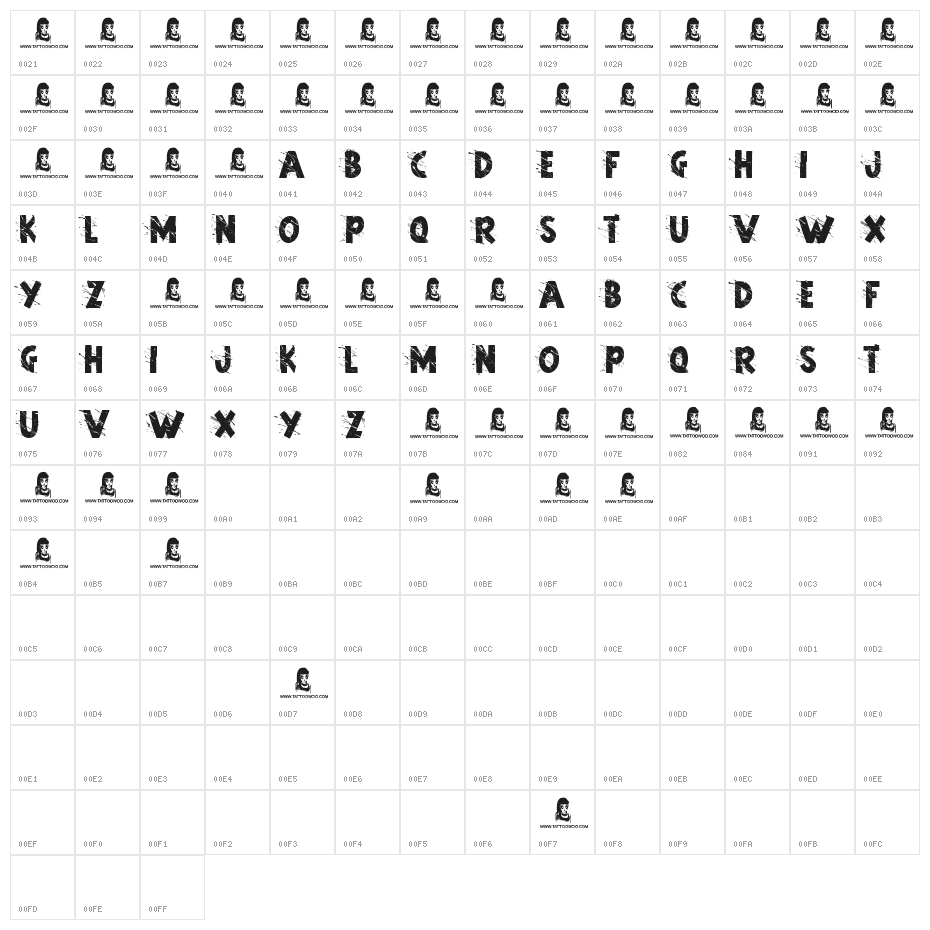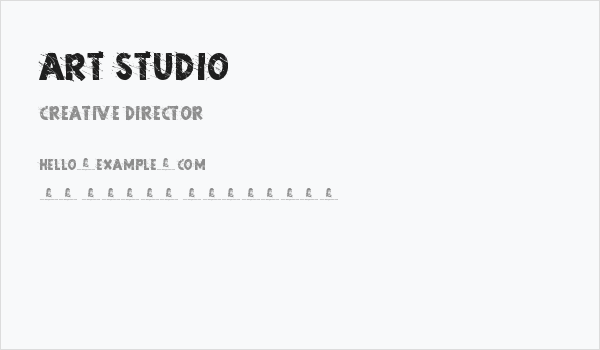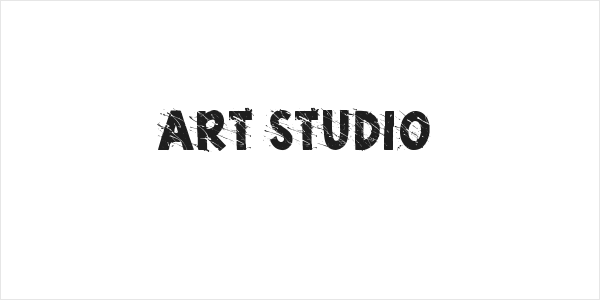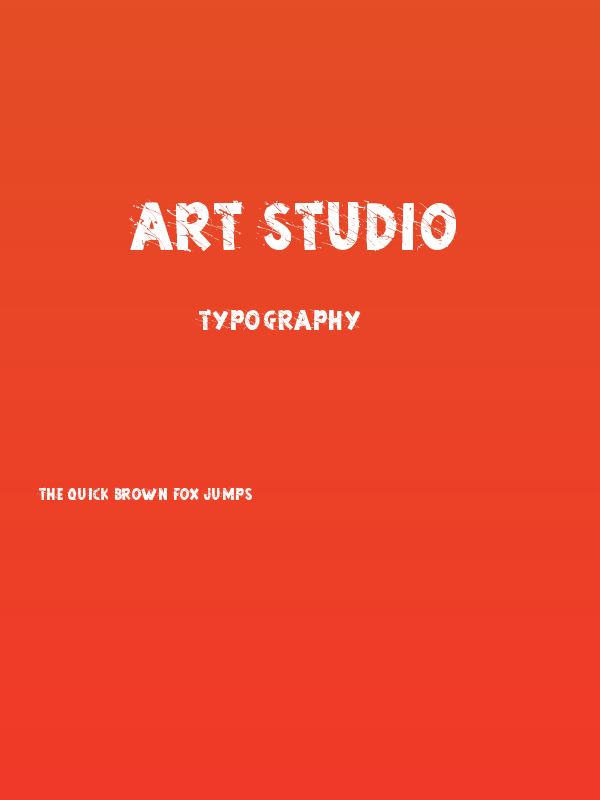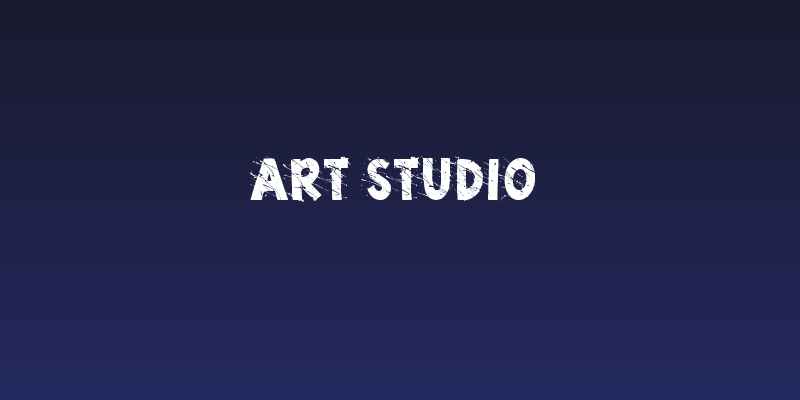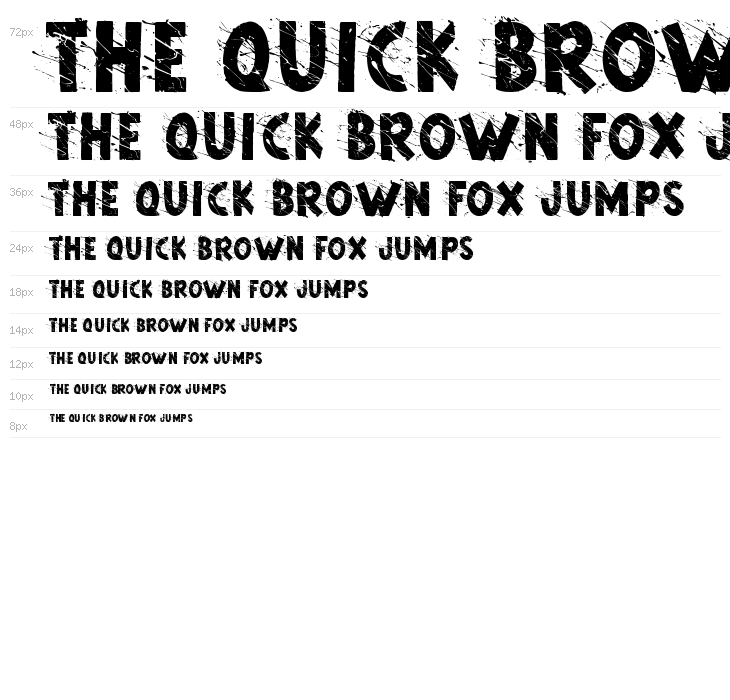
Art Studio Font
Art Studio Description
This font features a bold, distressed style with a grunge texture that gives it a rugged, edgy appearance. The letters are uppercase and exhibit a rough, scratched surface, adding a sense of movement and dynamism. The design is highly decorative, making it suitable for projects that require a strong visual impact. The font's unique texture and boldness make it stand out, ideal for artistic and creative applications. It captures attention with its raw, unfinished look, perfect for designs that aim to convey a sense of rebellion or nonconformity.
| Overall Style | Grunge, Edgy, Artistic |
| Proposed Projects | Ideal for album covers, posters, streetwear branding, and edgy graphic designs. |